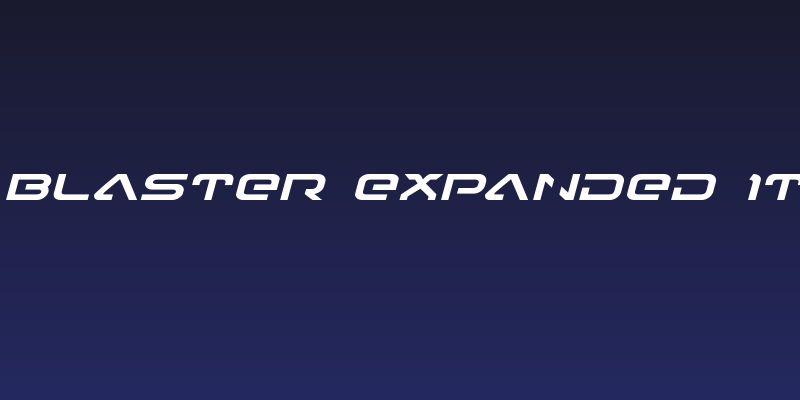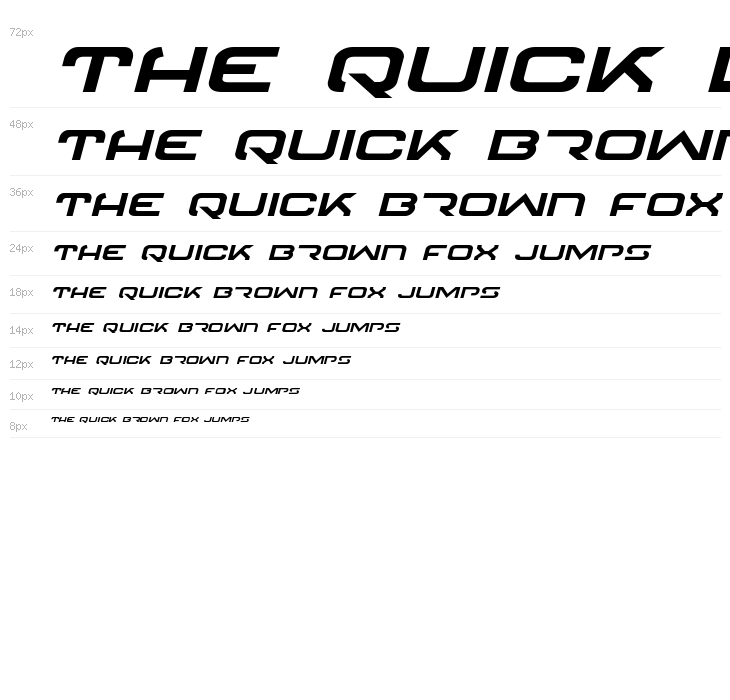
4114 Blaster Expanded Italic Font
4114 Blaster Expanded Italic Description
This font features a futuristic and dynamic design, characterized by its expanded and italicized letterforms. The angular and geometric shapes give it a modern and tech-inspired appearance, making it ideal for projects that require a bold and striking visual impact. The uppercase and lowercase letters maintain a consistent style, with sharp edges and a sense of movement. The numerals and special characters are designed to complement the overall aesthetic, ensuring a cohesive look across all text elements.
| Proposed Projects | Ideal for technology branding, sci-fi themed designs, video game titles, and modern advertising campaigns. |